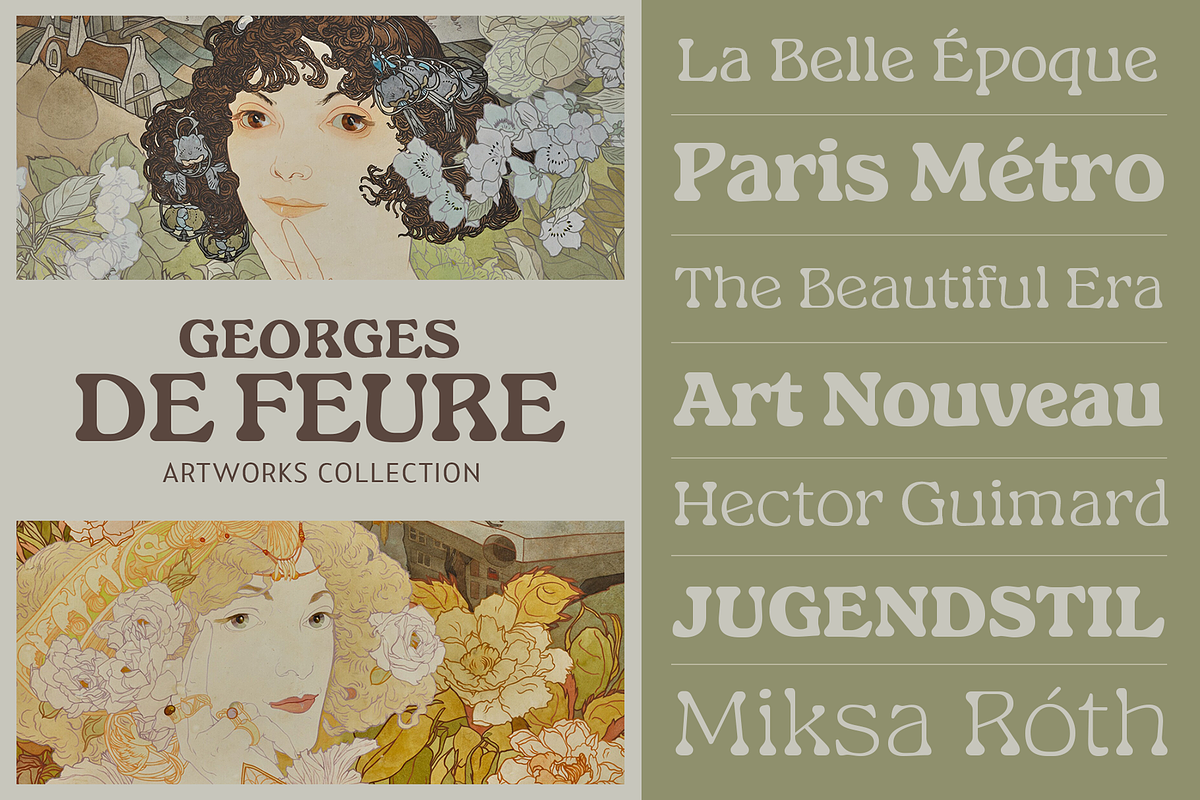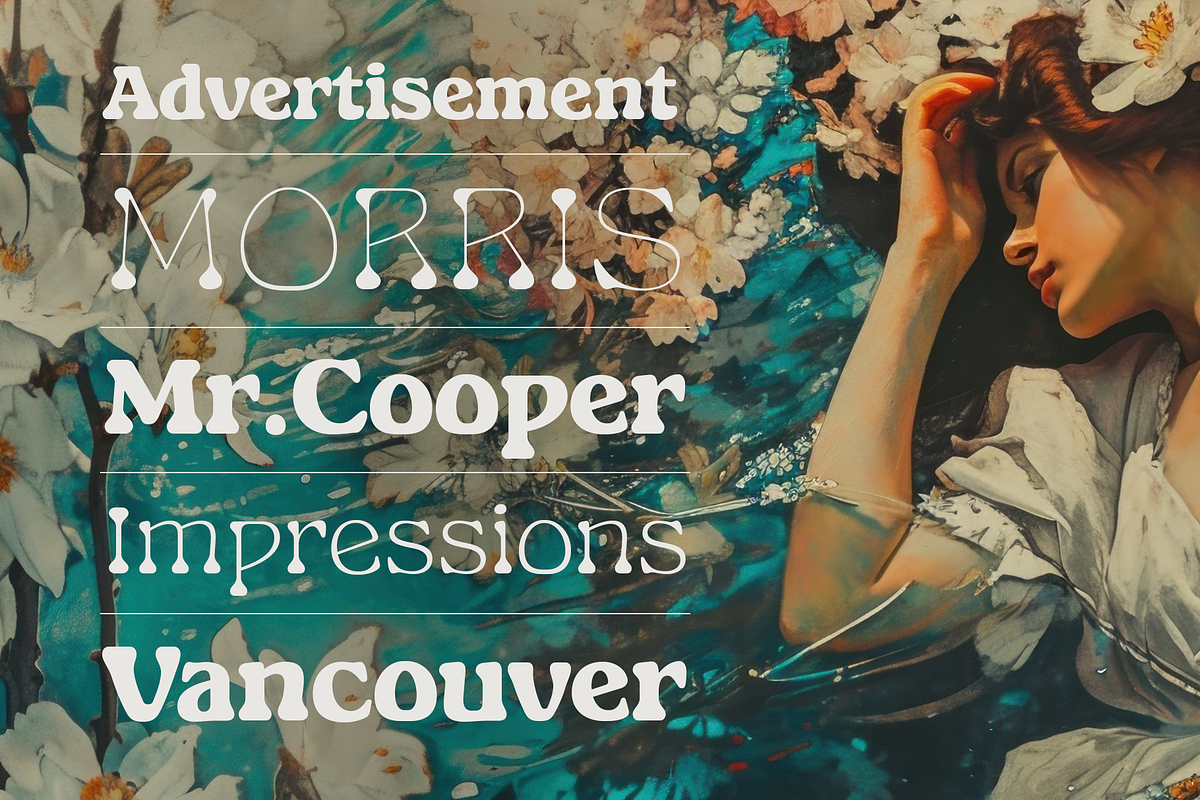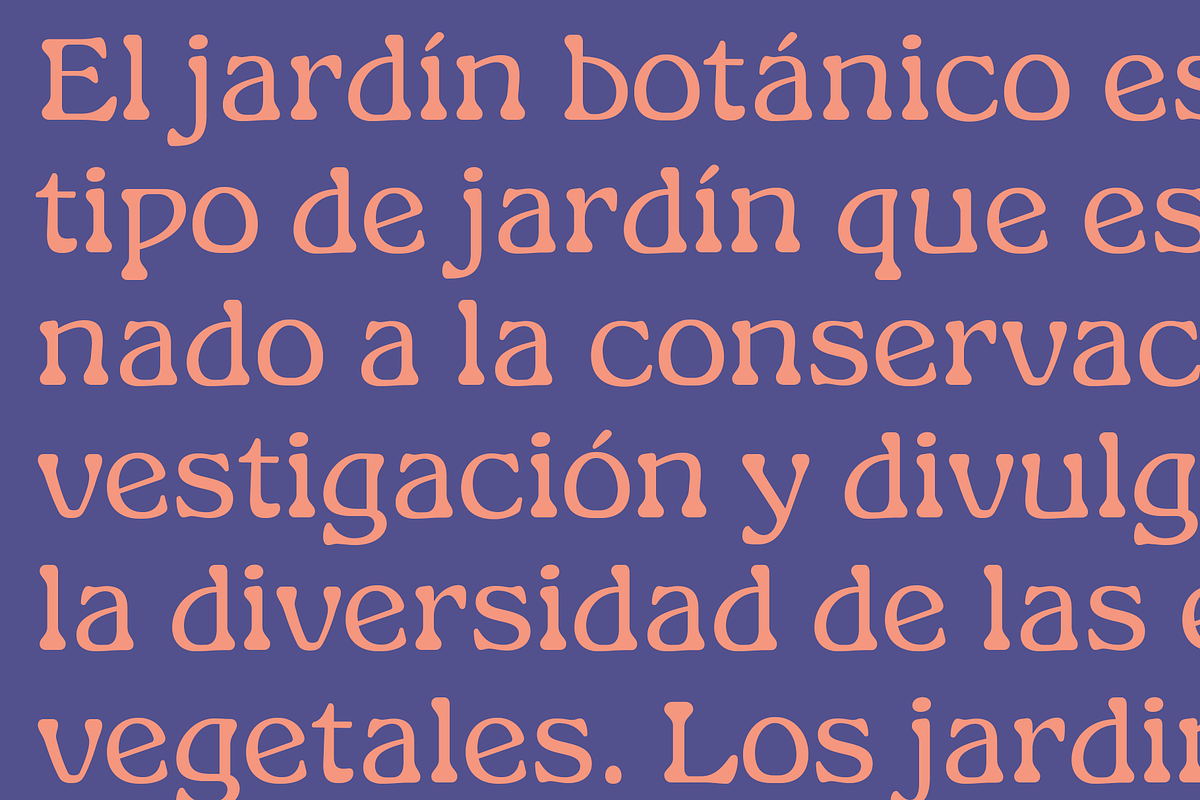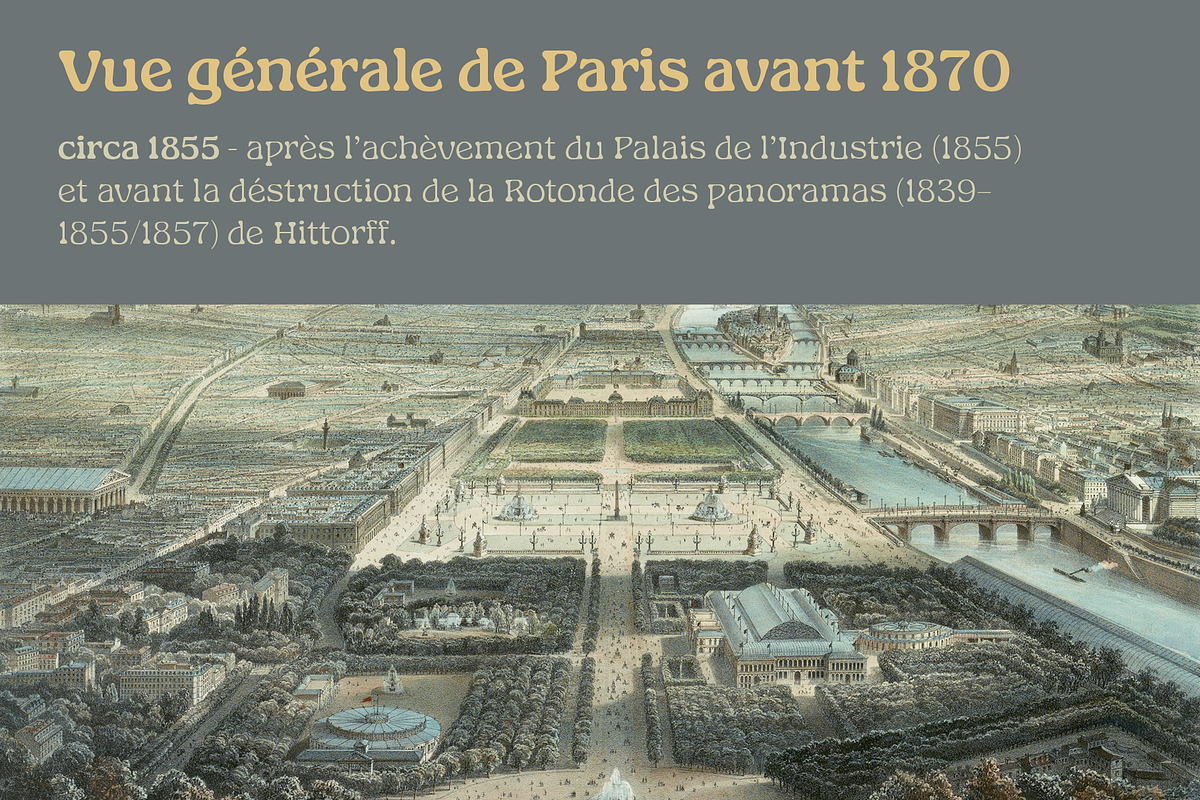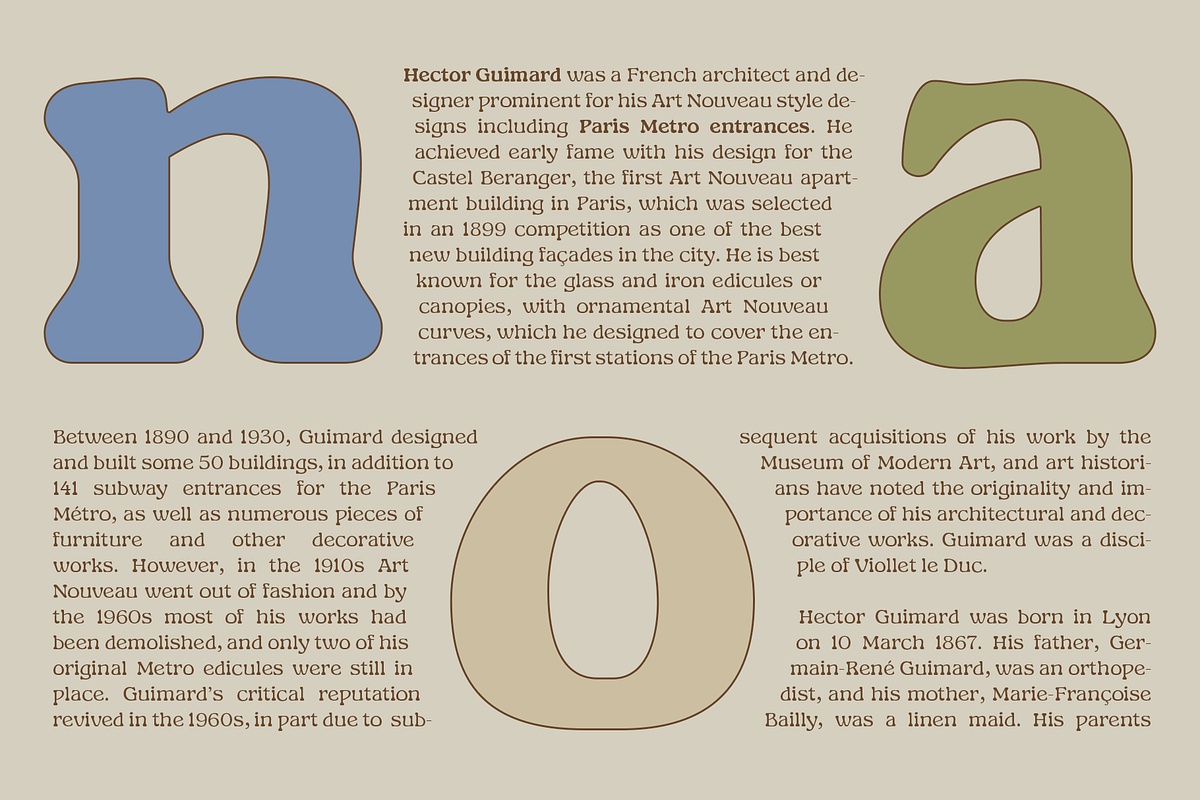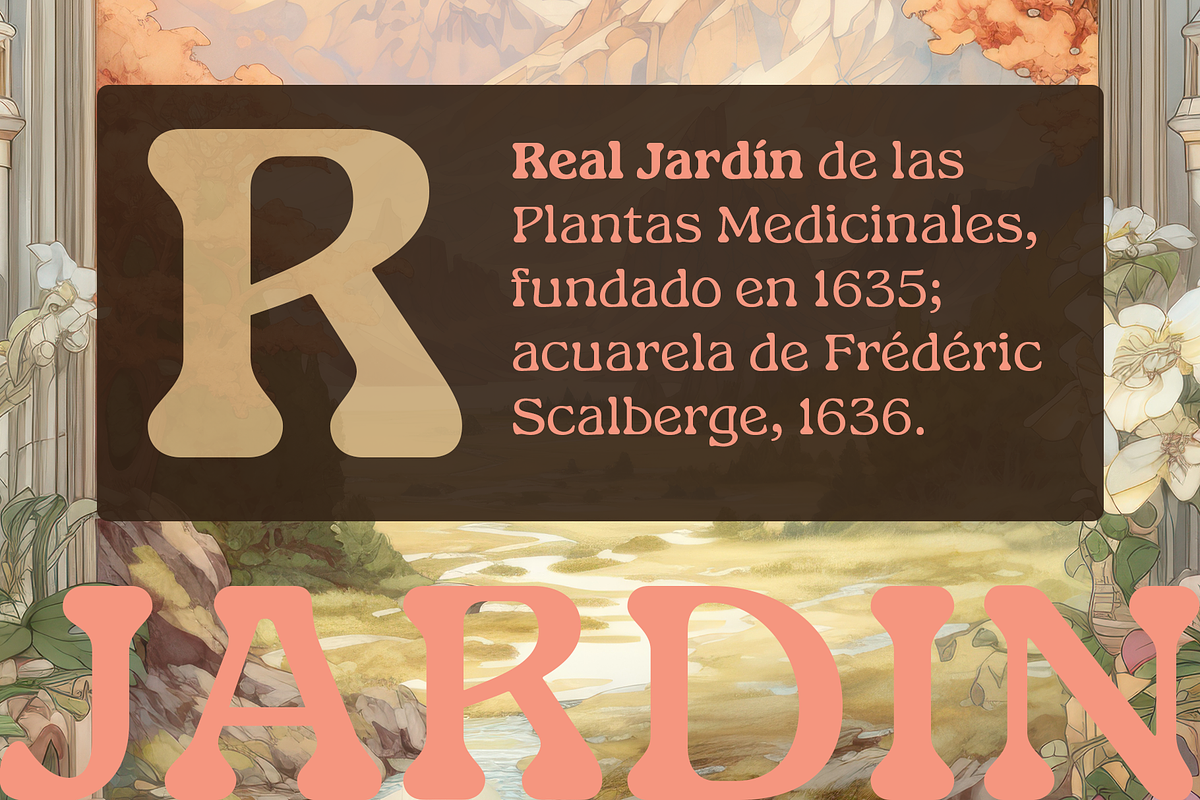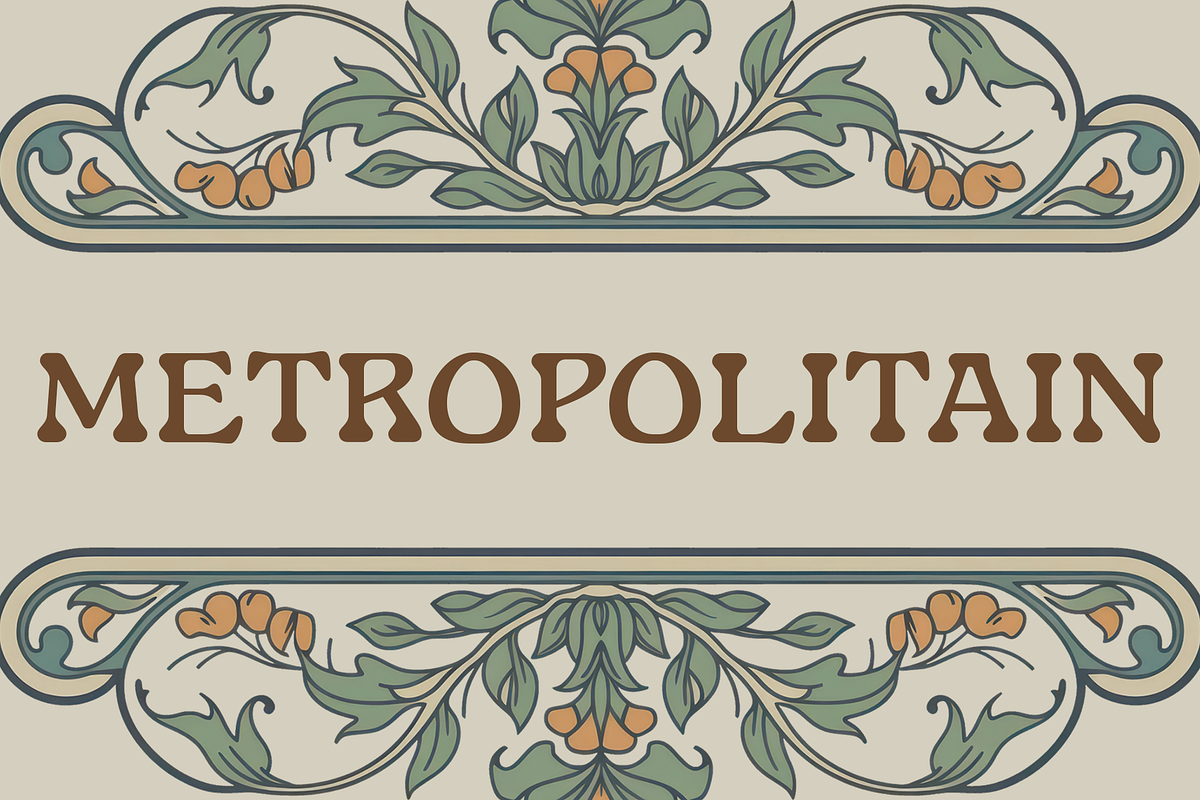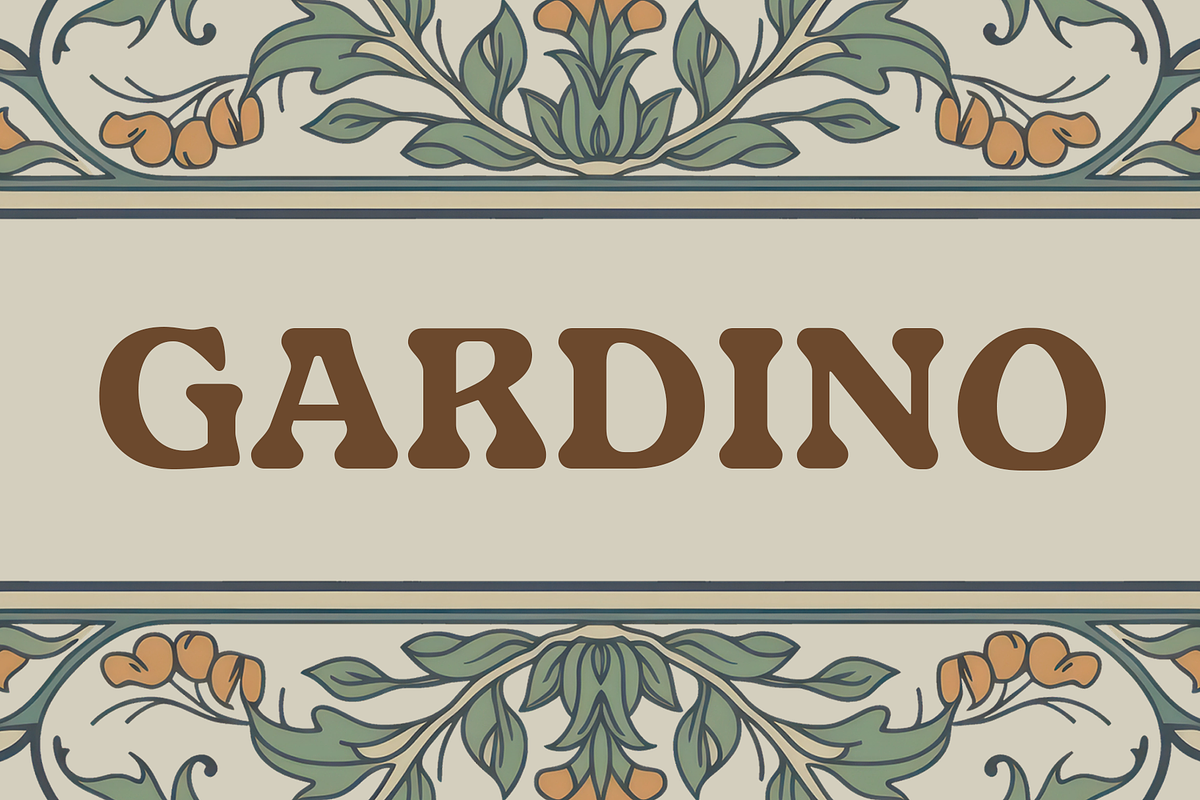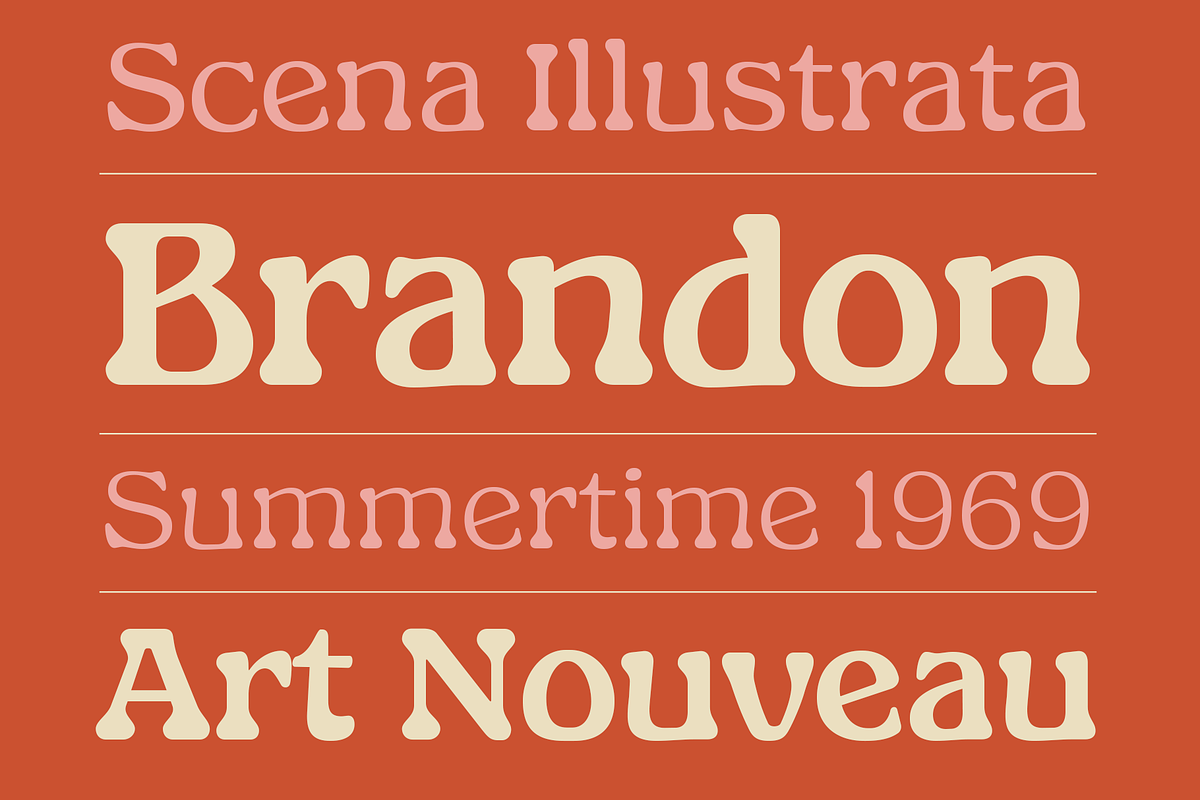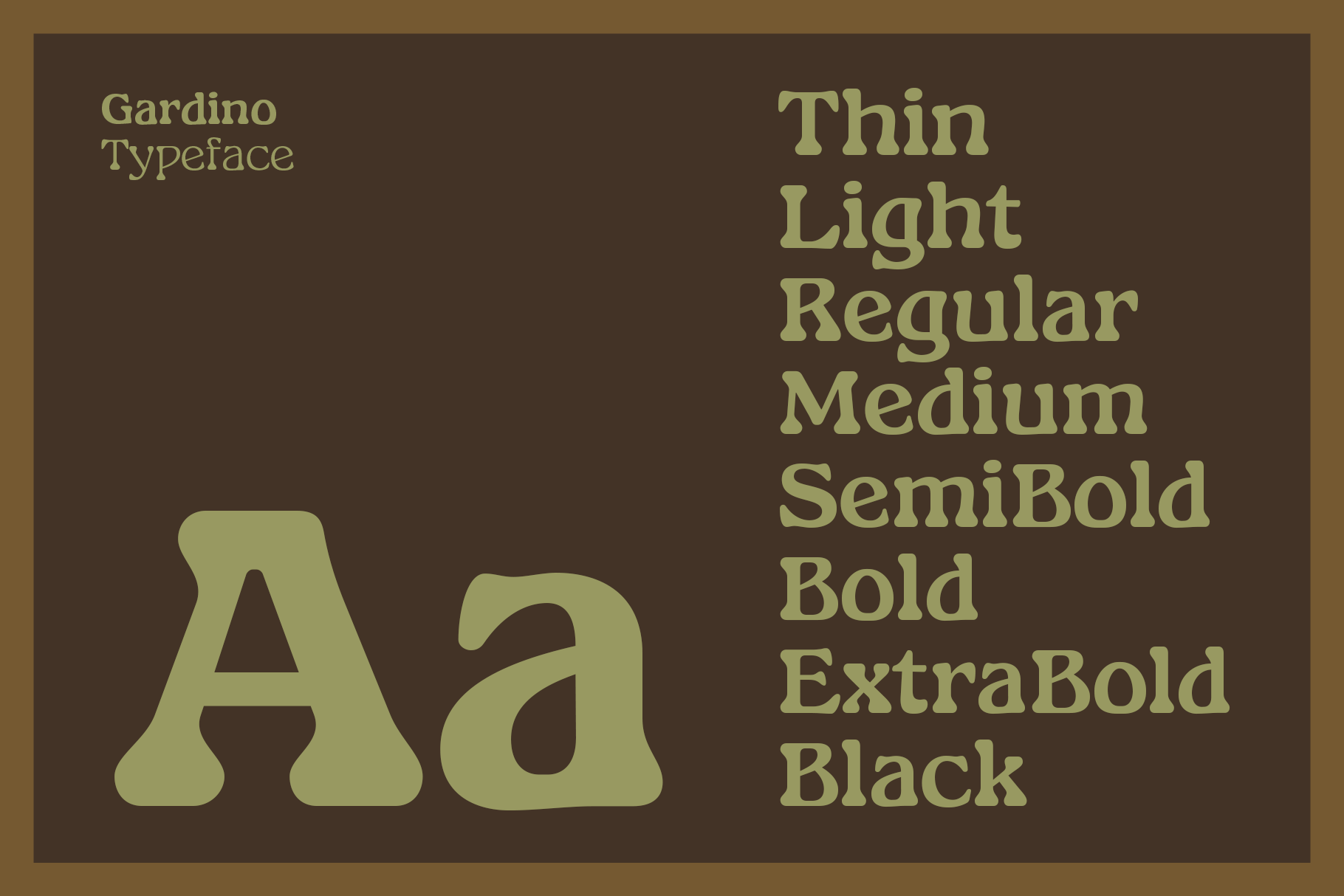
GARDINO - Art Nouveau Typeface
Gardino is a serif family of eight fonts inspired by hand-letter works and typefaces from the Art Nouveau era, especially Radium (by Ludwig & Mayer, 1904), Arnold Bocklin (by Otto Weisert, 1904) & Hobo (by ATF, 1910).
It comes in eight weights from thin to black. Its mixture of weights provides a wide range of styles that will help you find the best retro vibes of your projects, for headlines or a short paragraph. It is well suited for book covers, magazines, branding, advertising and more.